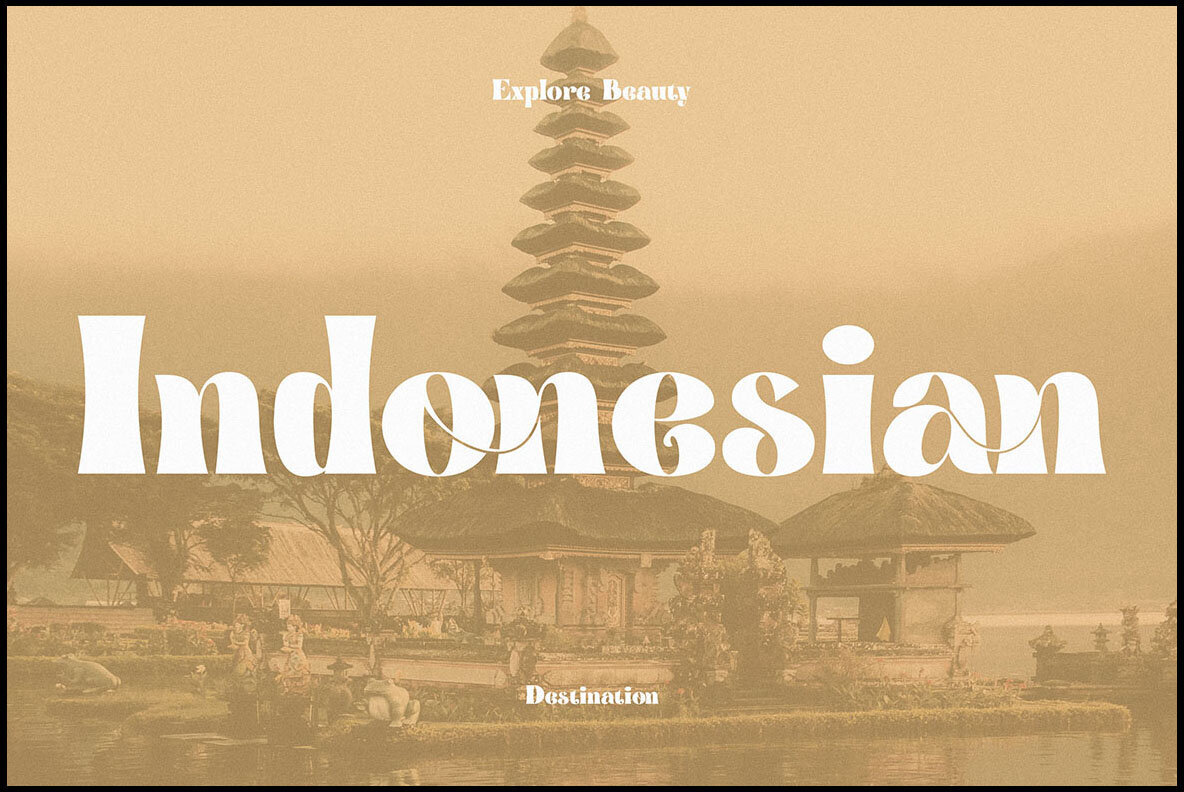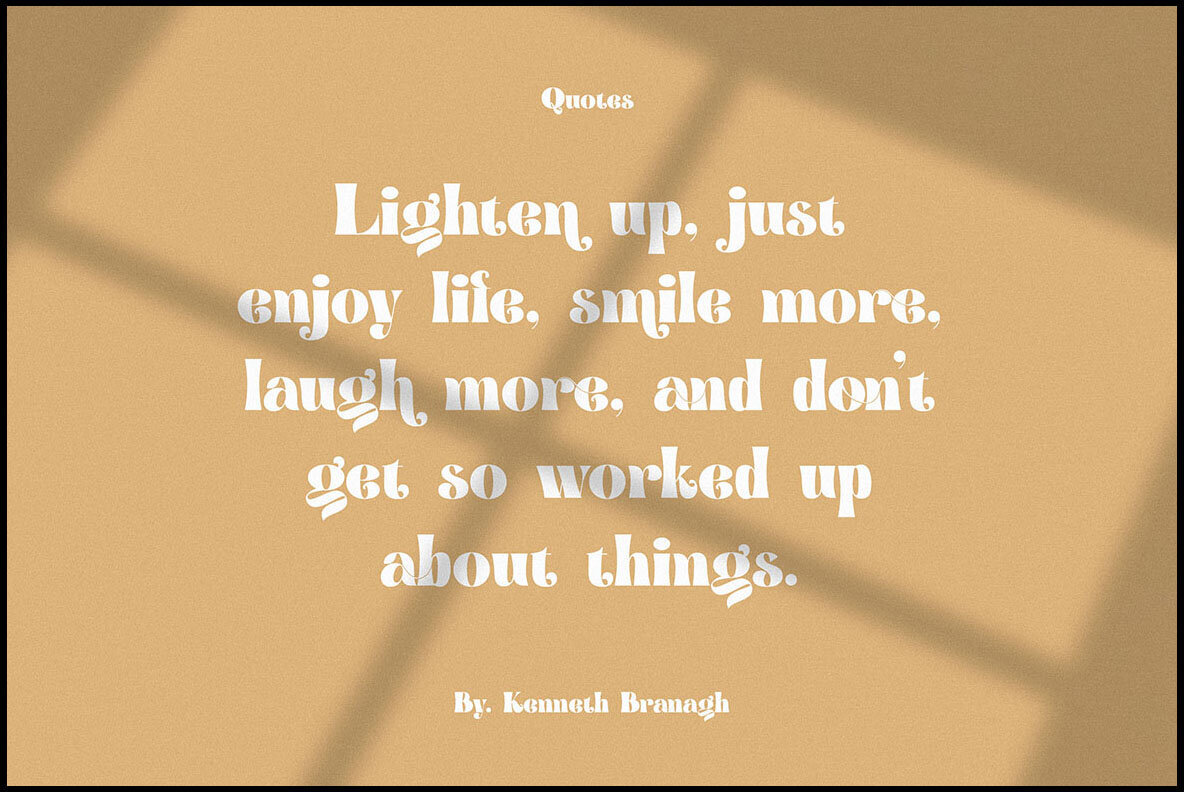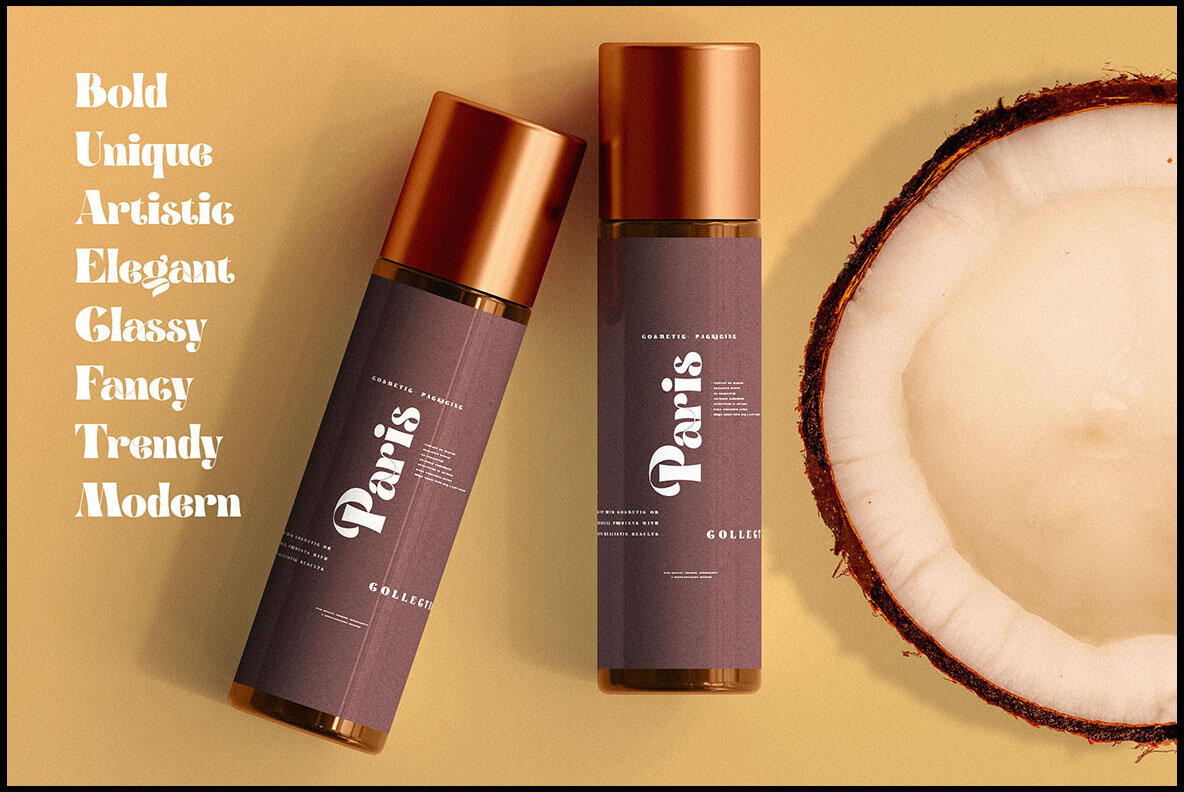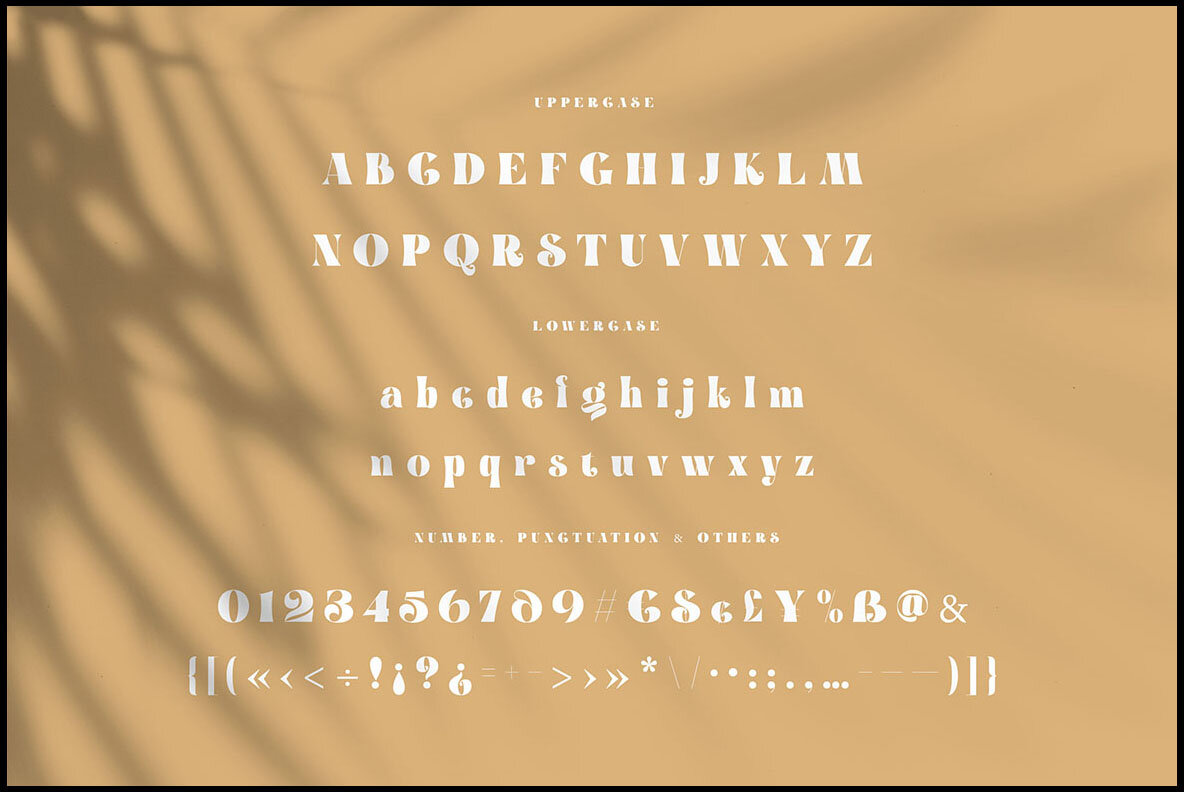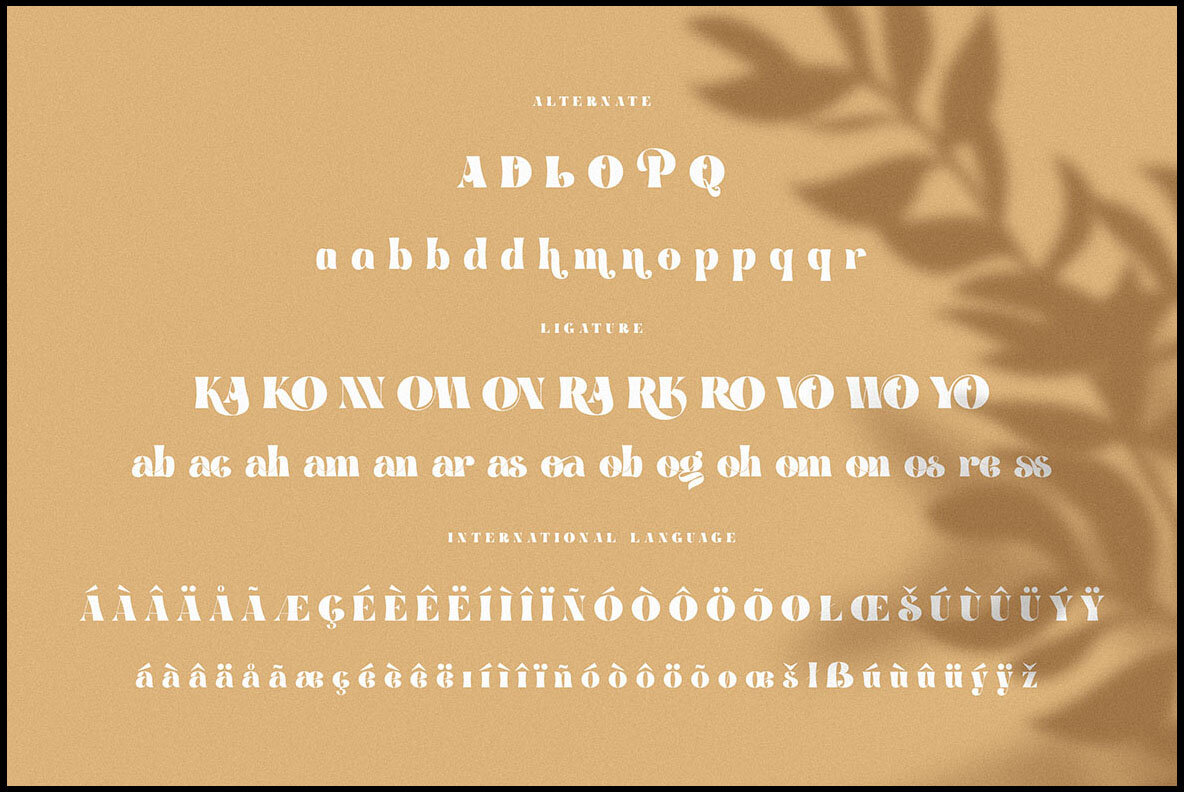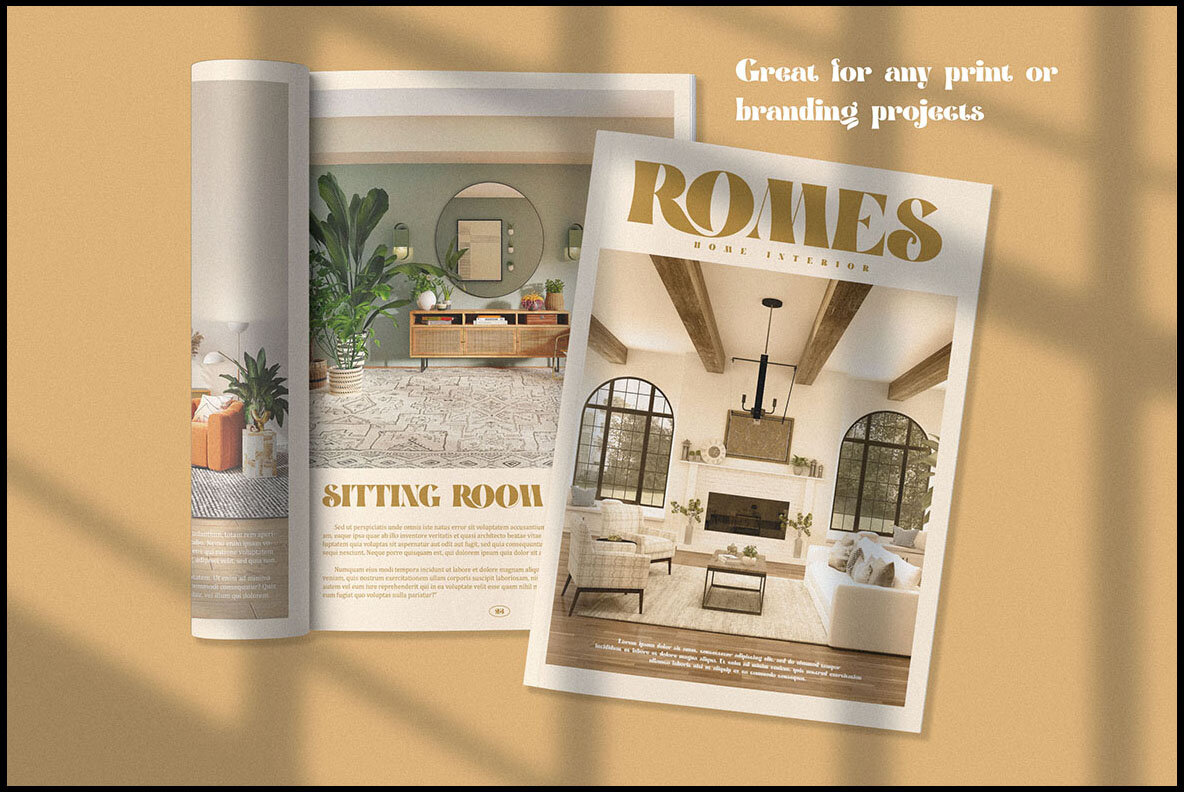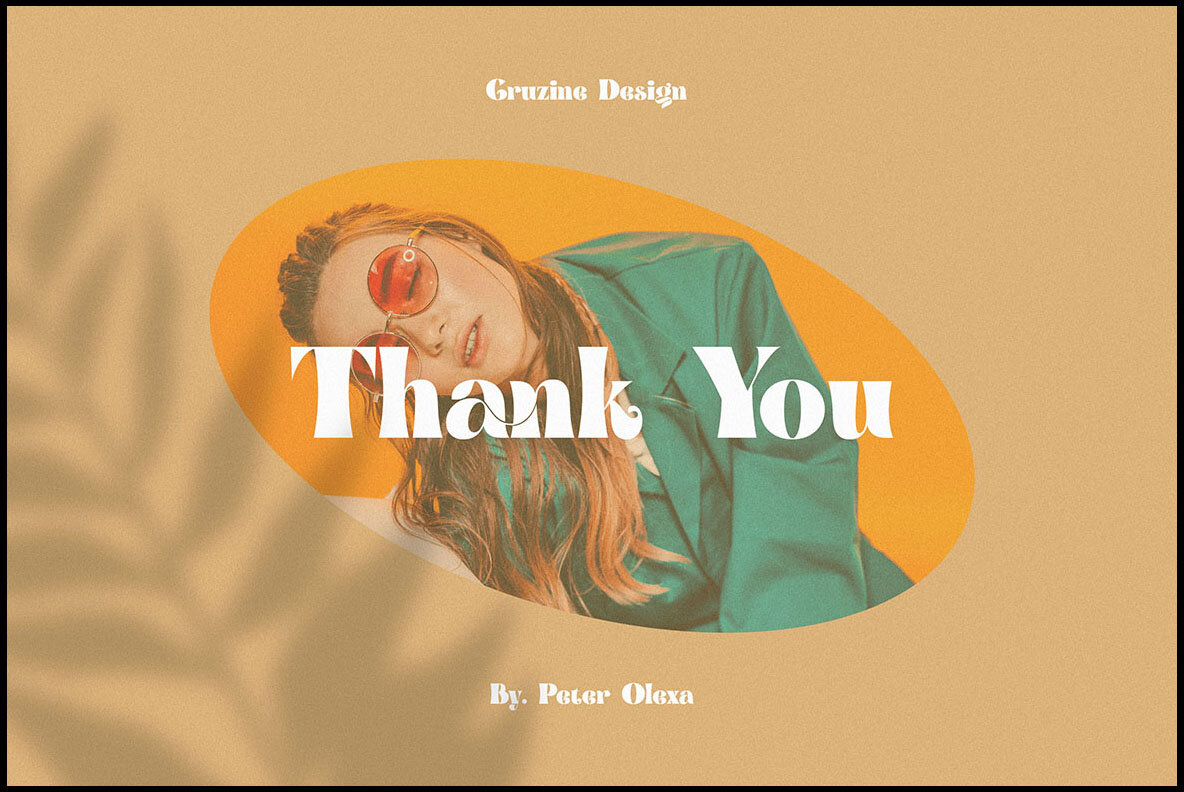
Brenham Font
Brenham Regular
Brenham by Peter Olexa is a stylish serif font that combines a trendy, bold, and modern aesthetic. Its elegant and classy design makes it perfect for sophisticated branding projects. With an array of alternates and ligatures, Brenham enables you to craft unique and original logo designs or eye-catching website headers.Brenham Serif Font: Trendy and Bold Design